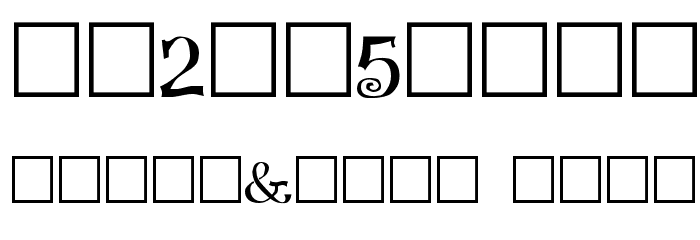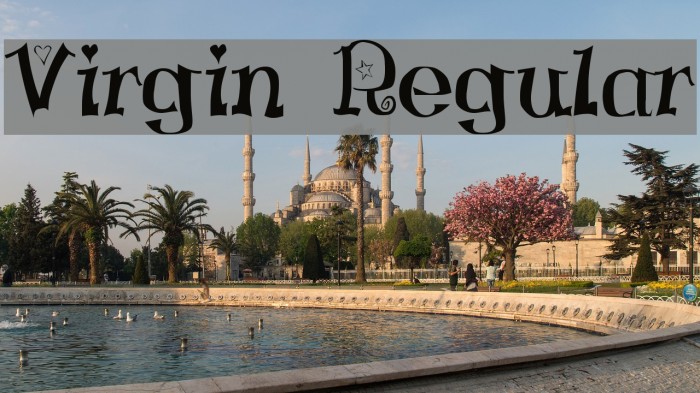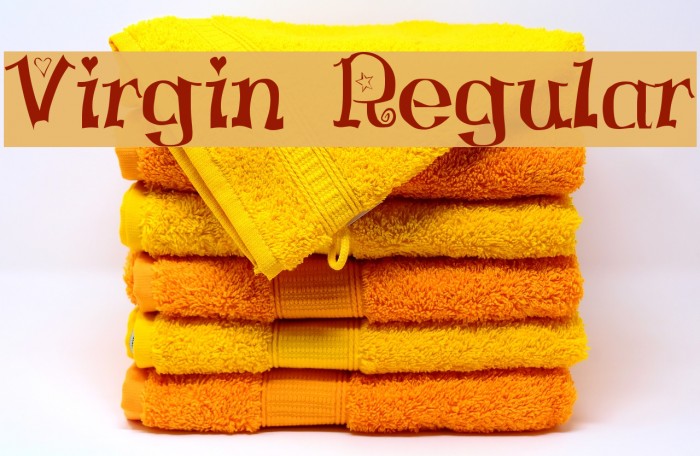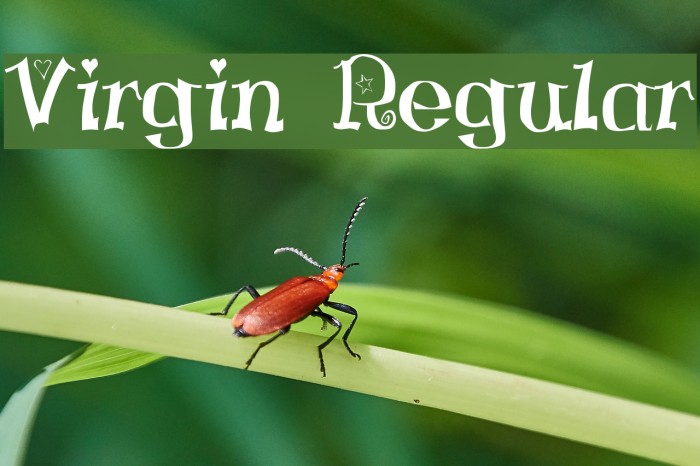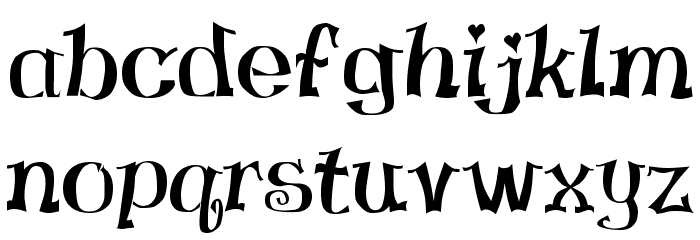
Virgin Regular Font
Virgin Regular Description
This font is a highly decorative and playful typeface, characterized by its whimsical and ornate design. Each letter is embellished with unique decorative elements such as stars, hearts, and floral motifs, giving it a lively and artistic appearance. The uppercase letters are bold and feature intricate details, while the lowercase letters maintain a consistent style with slightly less ornamentation. The font has a hand-drawn quality, adding to its charm and appeal. It is ideal for projects that require a fun and creative touch, such as invitations, posters, and children's book covers. The overall style is both vintage and modern, making it versatile for various design needs.
| Proposed Projects | Ideal for invitations, posters, children's books, and creative designs. |